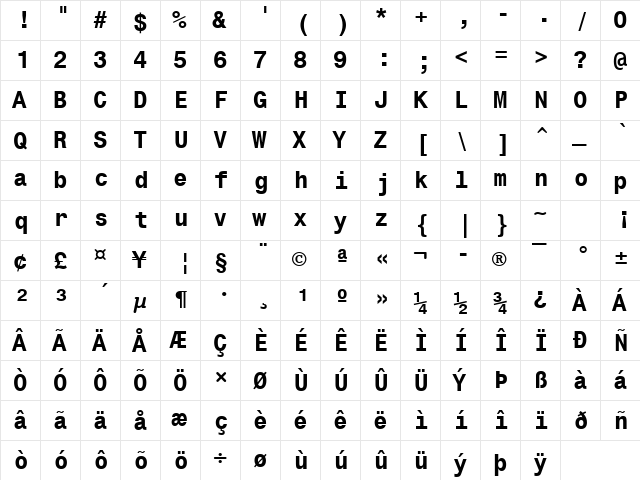
Monospac821 Win95BT Bold Font Preview
Design Context for Monospac821 Win95BT Typeface
Monospac821 Win95BT uses fixed-width spacing throughout, giving it the structured, systematic character associated with coding environments and technical documentation. The heavy weight commands attention and anchors typographic hierarchies.
Pro Tip: Use Monospac821 Win95BT with slightly increased line-height for extended reading — fixed-width spacing can feel dense in longer passages without extra breathing room.